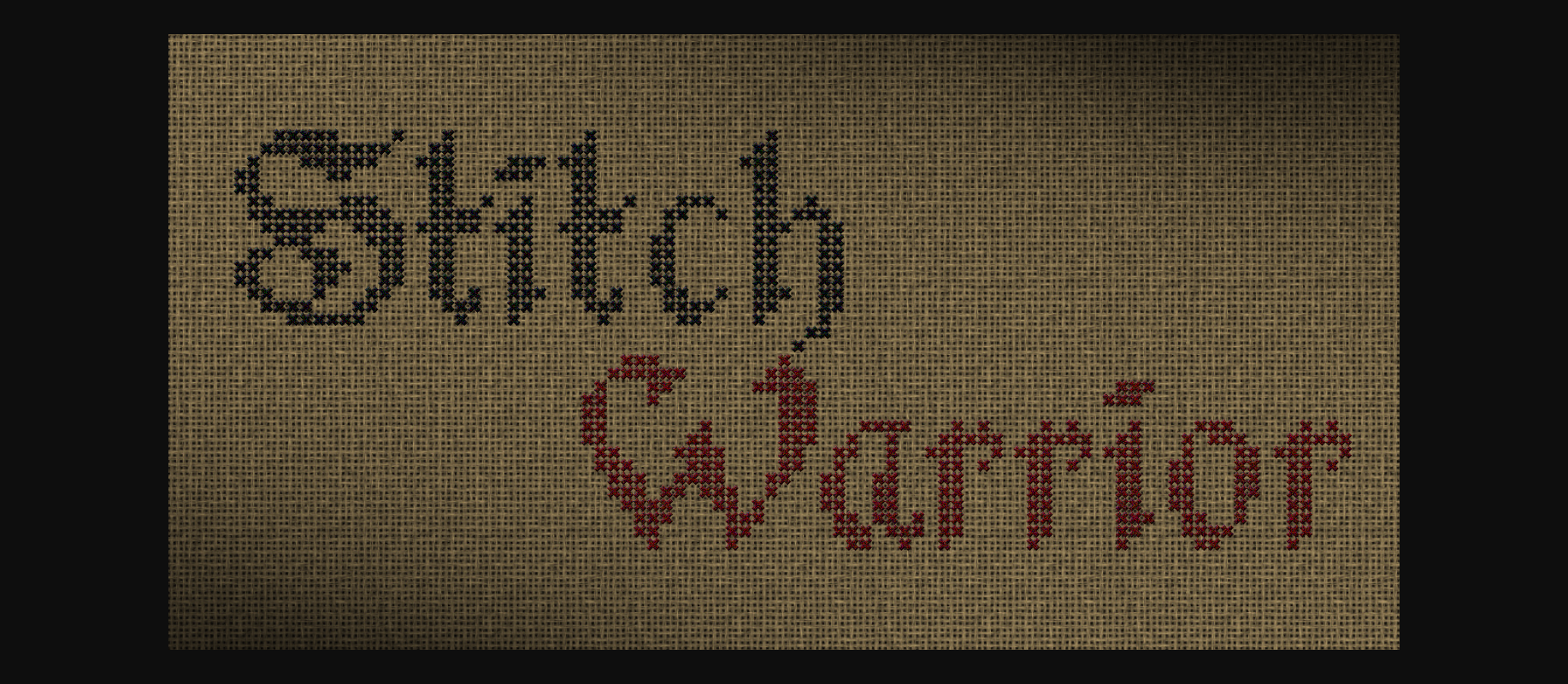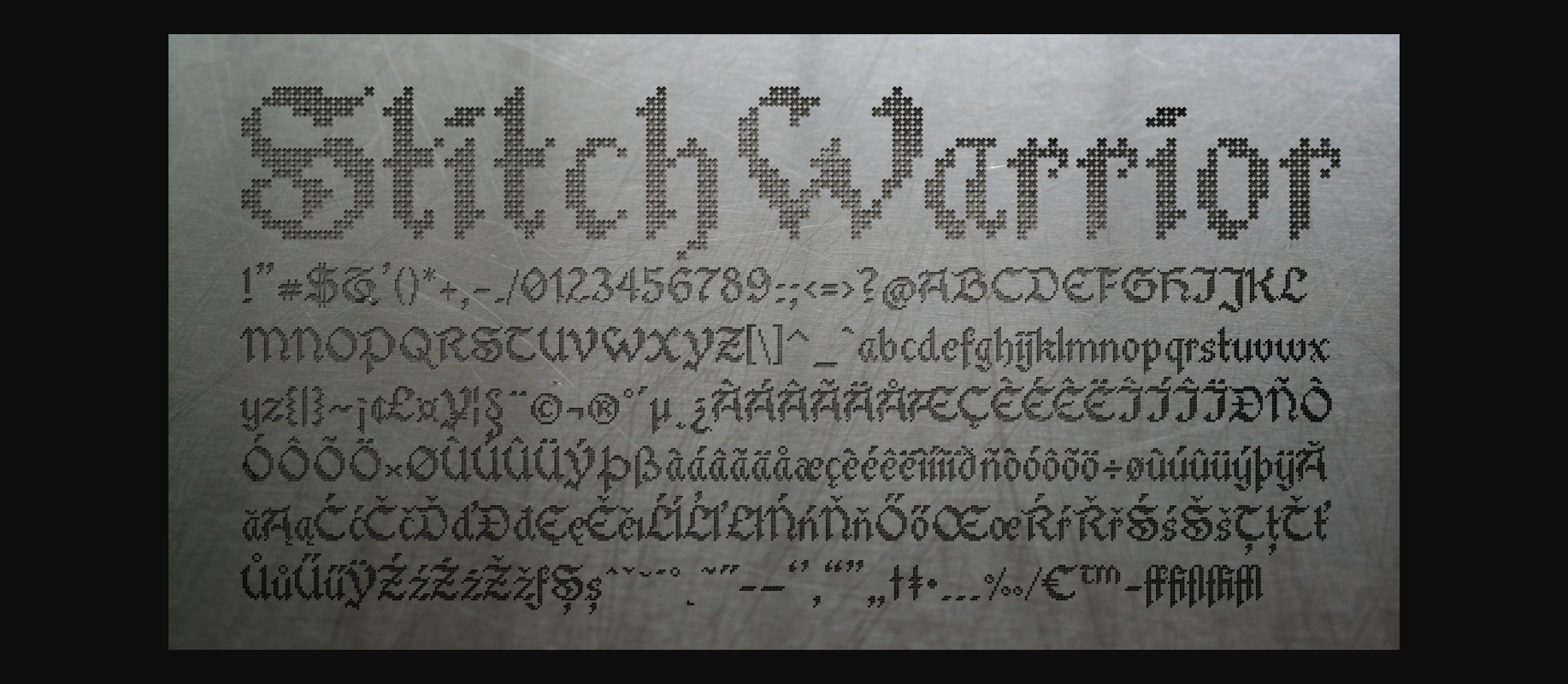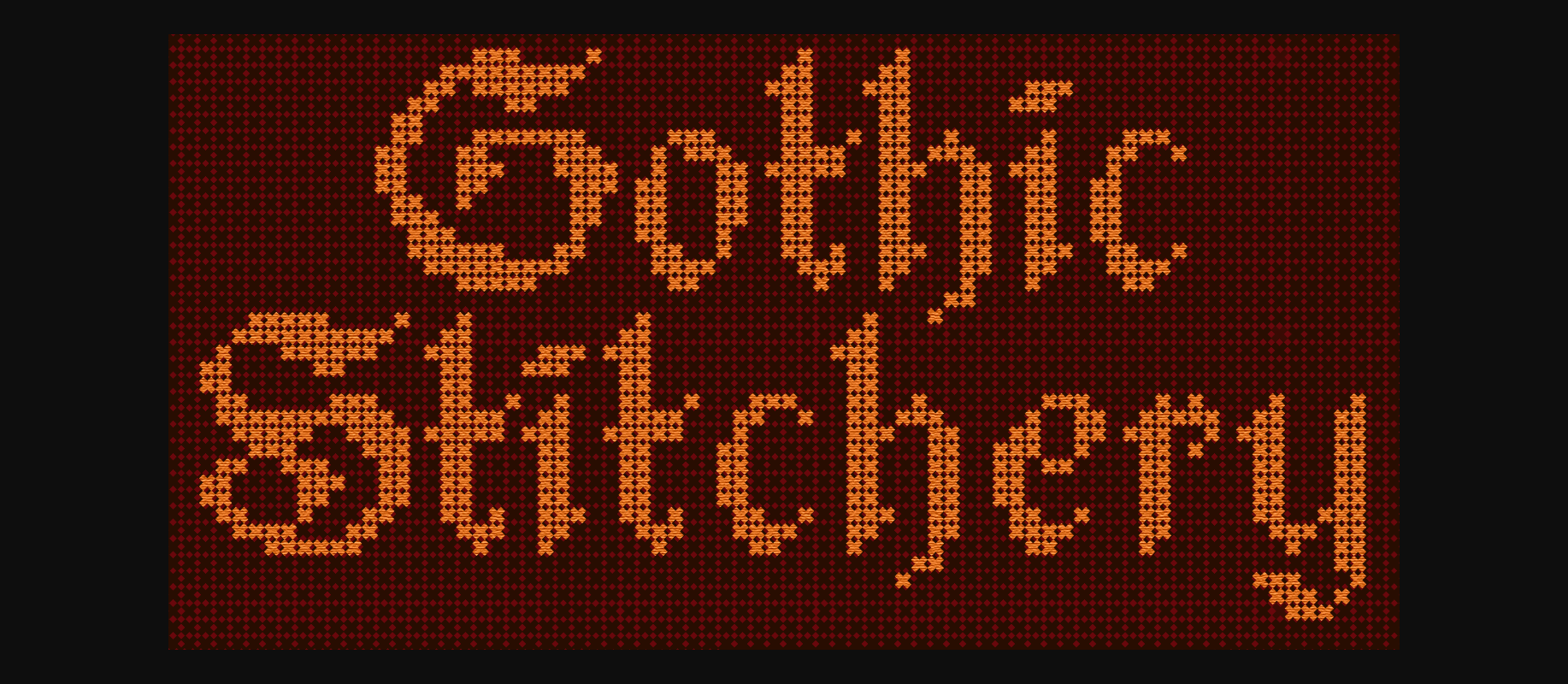
Stitch Warrior Font
About Stitch Warrior Font
“Stitch Warrior is a a gothic style stitch font. It’s made of cross stitches (“x”) and even kerning. I was trying to be as accurate and close to real stitch-work as possible so your creative projects can have an authentic and realistic feel.”